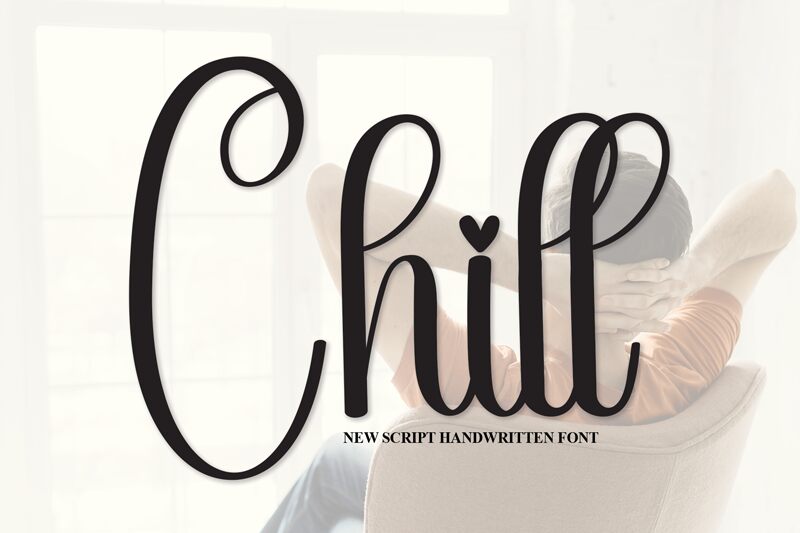
Chill
Chill, a creation by Scratchones, exudes a relaxed and personal touch with its handwritten style that seems to flow effortlessly from the tip of a well-loved pen. Its condensed letters carry an intimate vibe, perfect for designs aiming to evoke closeness and warmth. The easy-going nature of Chill pairs beautifully with casual branding, heartfelt invitations, or any project that benefits from a touch of human presence.
This font invites readers into a space that's as comforting as your favorite cozy corner—a versatile choice for anyone seeking to add a handwritten charm without sacrificing legibility.